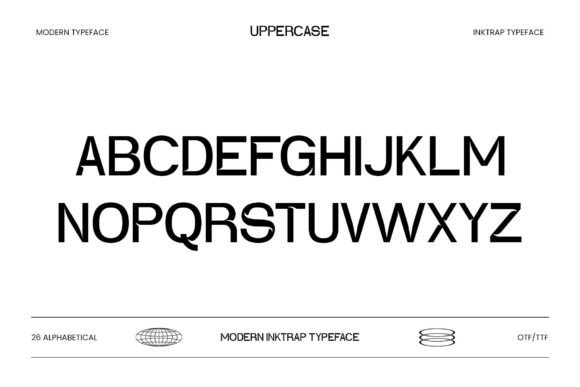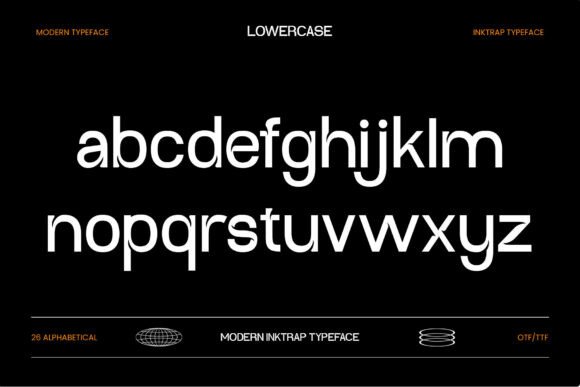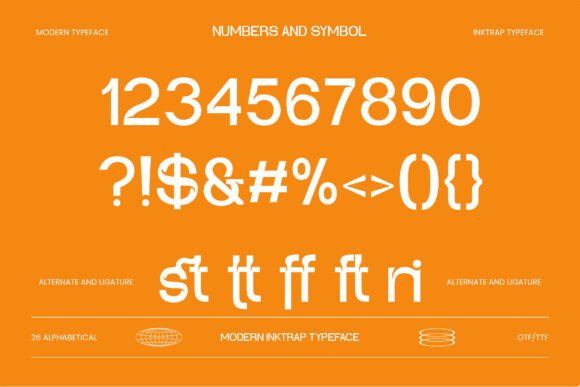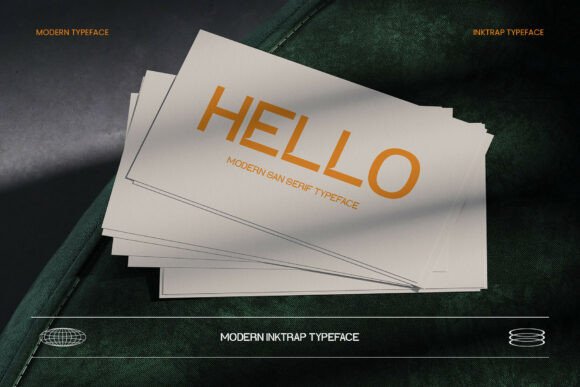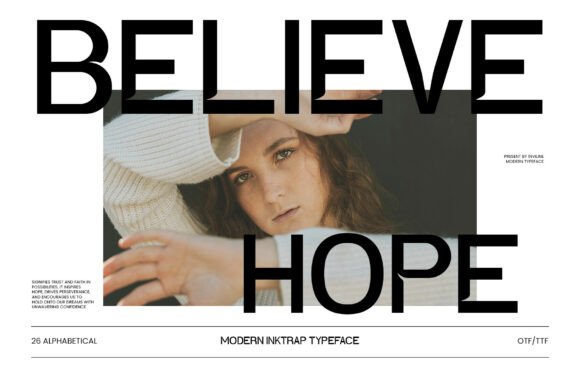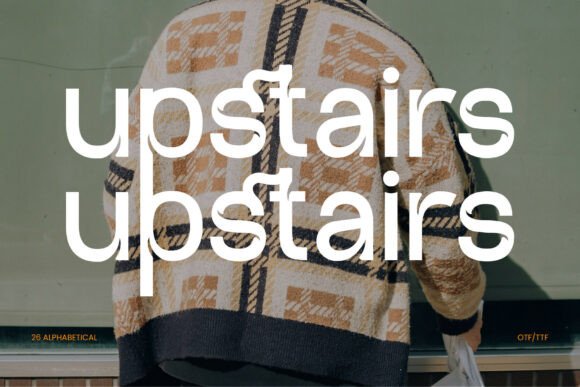
Introduction to Damaris Font
Have you ever been stuck in front of a blank page, staring at a blank canvas, searching for the perfect font to elevate your creative project? We’ve all been there, and it’s a frustrating feeling, especially when you know your design deserves that special something to make it stand out. That’s where the Damaris Font comes in – a modern inktrap typeface designed to add a touch of high-quality style to your work.
As a valuable design resource, the Damaris Font is perfect for magazine headlines, fashion branding, logos, and minimalistic layouts. With its clean lines and unexpected details, it’s a standout choice for any modern project. Whether you’re working on a high-end fashion campaign or a sleek tech startup, the Damaris Font is sure to deliver.
Key Features of Damaris Font
- Available in a transparent background, allowing for seamless integration into various designs
- Unique characteristics: elegant, modern, and sophisticated design, perfect for high-end branding and advertising
- Supports multiple languages, making it a versatile design resource for global creative projects
Honest Review: Damaris Font
I recently stumbled upon the Damaris Font, a free design resource that’s caught my attention with its unique style and versatility. As a designer, I appreciate high-quality fonts that can elevate my creative projects, and Damaris Font definitely delivers.
One of the standout features of Damaris Font is its transparent background, which makes it easy to use on any design project. The font’s elegant and modern design makes it perfect for a variety of applications, from web design to print materials.
- ✨ Unique and modern design
- ✨ Transparent background for easy use
- ⚠️ Limited character set, which may not be ideal for longer text
- ⚠️ Not suitable for complex typography projects
Overall, I’m impressed with the Damaris Font. It’s a great addition to any designer’s toolkit, and its unique style makes it perfect for creative projects that require a touch of elegance and sophistication.
Damaris Font
Tips for Getting the Most Out of Damaris Font
To get the most out of the Damaris Font, use it with a transparent background to create a clean and modern design. You can also experiment with different font sizes, colors, and styles to create a unique look.
The Damaris Font is perfect for a variety of creative projects, including logos, business cards, brochures, and social media graphics. Its high-quality design and transparent background make it an ideal choice for any project that requires a clean and modern look.
Can I use Damaris Font with a transparent background?
Yes, Damaris Font has a transparent background, making it ideal for use in graphic design, web design, and other applications where a transparent font is required. The font’s transparent background is achieved through the use of an alpha channel, which allows the font to blend seamlessly with any background image or color.